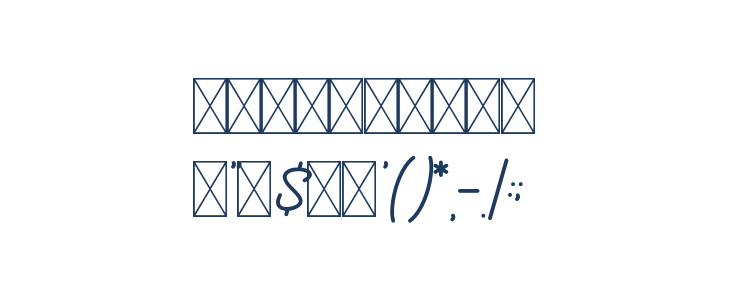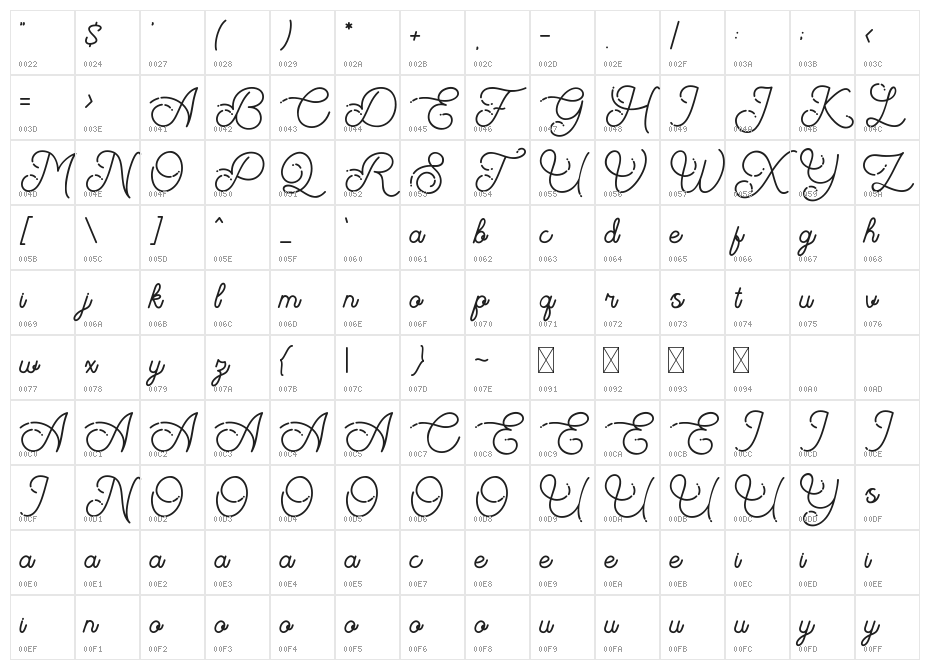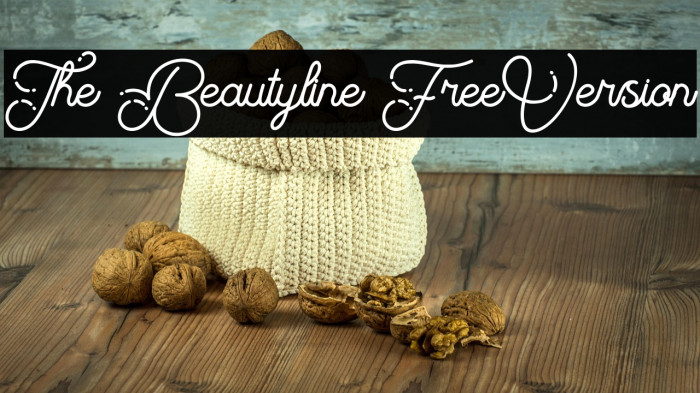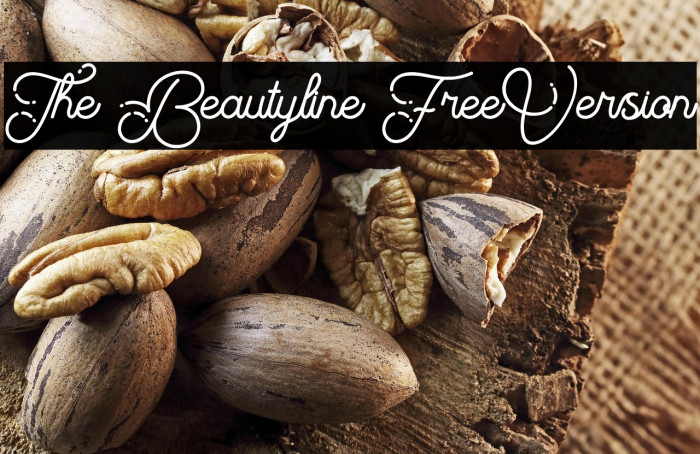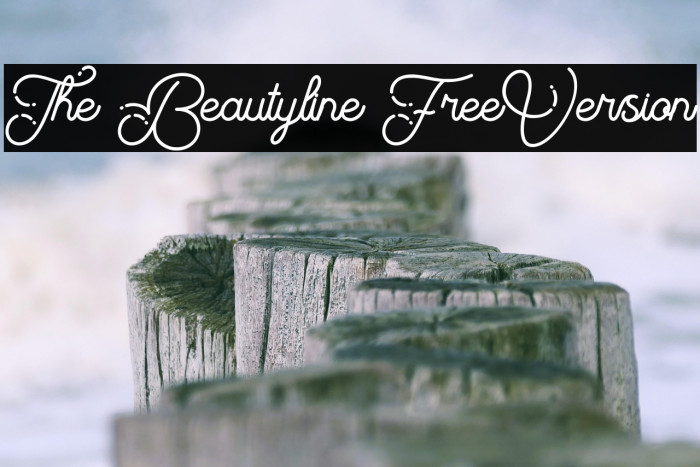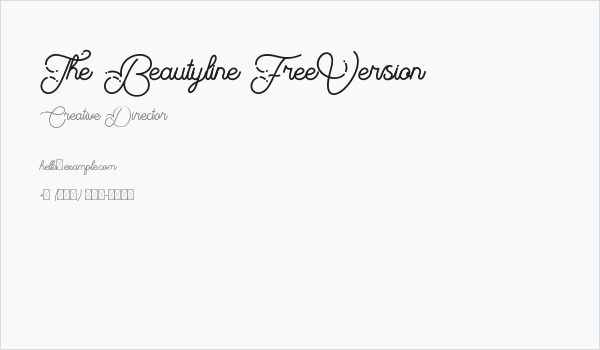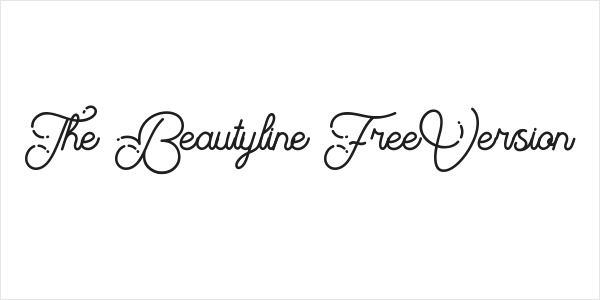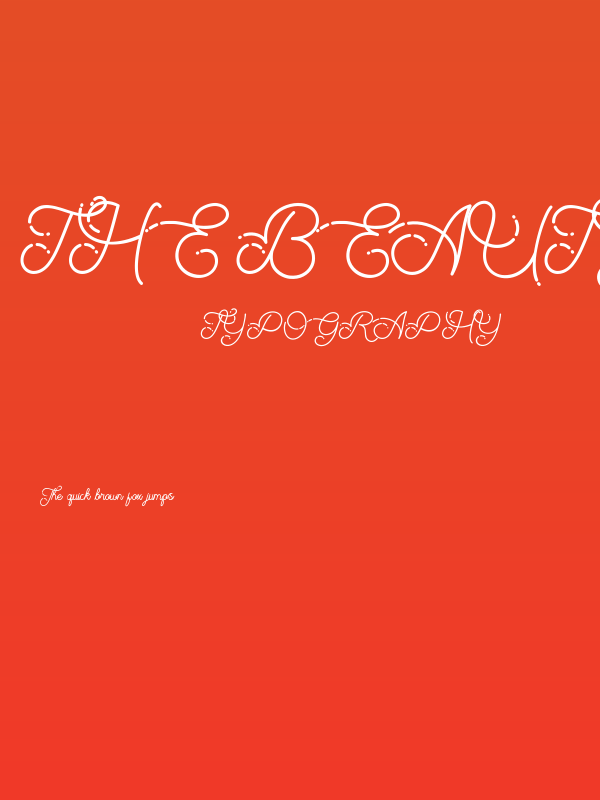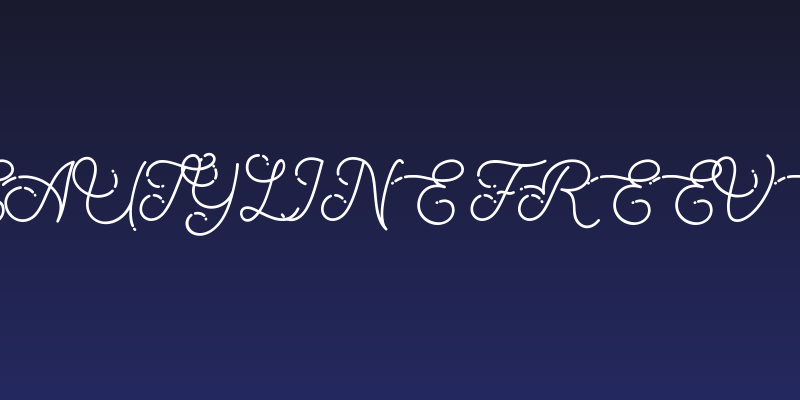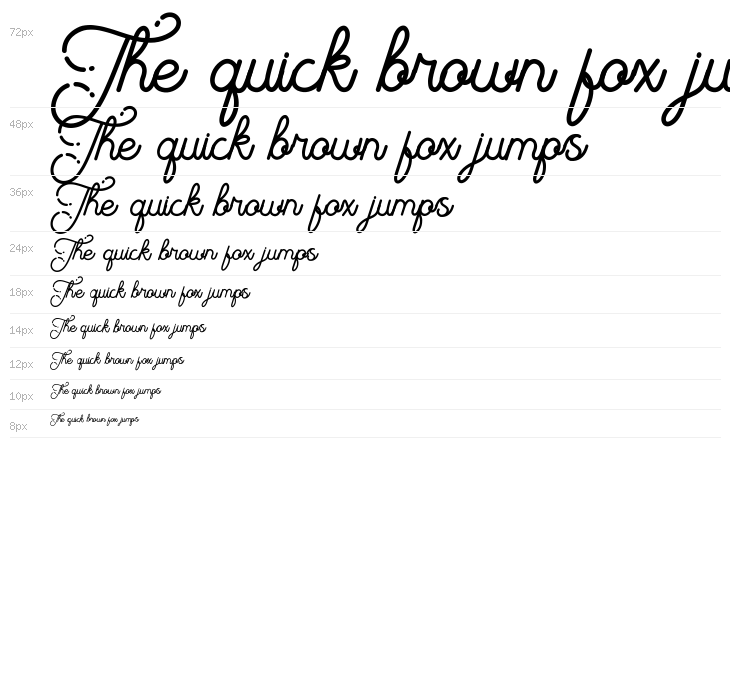
The Beautyline FreeVersion Font
The Beautyline FreeVersion Description
This elegant script font features a flowing, cursive style with intricate swirls and loops, giving it a sophisticated and decorative appearance. The uppercase letters are adorned with elaborate flourishes, while the lowercase letters maintain a smooth, connected script that enhances readability. The font exudes a sense of grace and charm, making it ideal for projects that require a touch of elegance. The characters are well-spaced, ensuring clarity and legibility despite the ornate design. The special characters complement the overall aesthetic, maintaining the decorative theme.